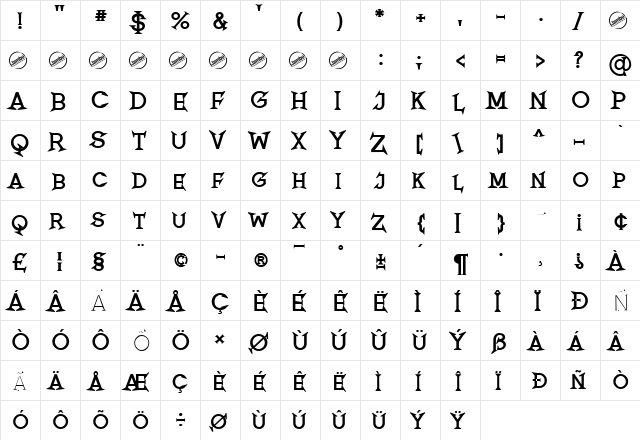
Romanicum Bold
Design Context for Romanicum Typeface
Romanicum is a composed and adaptable typeface that performs quietly and consistently across a wide range of design contexts. The heavy weight commands attention and anchors typographic hierarchies.